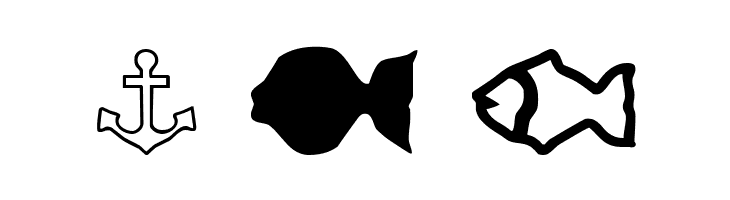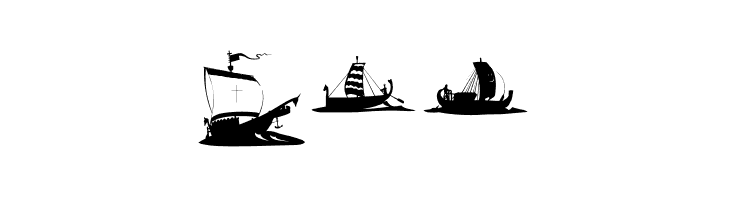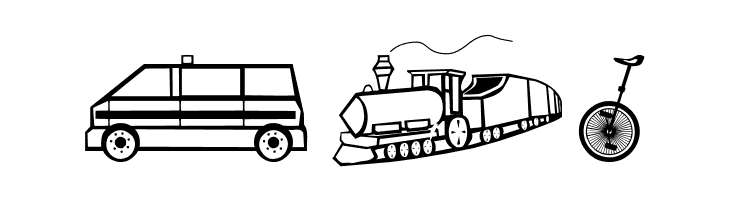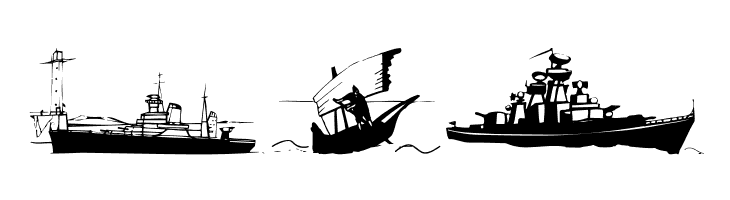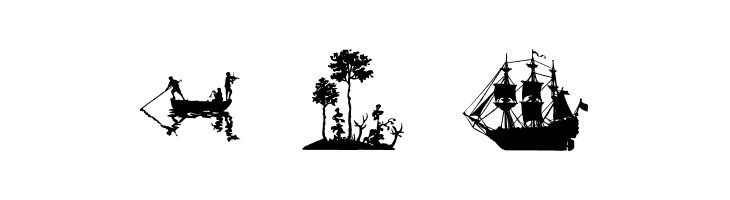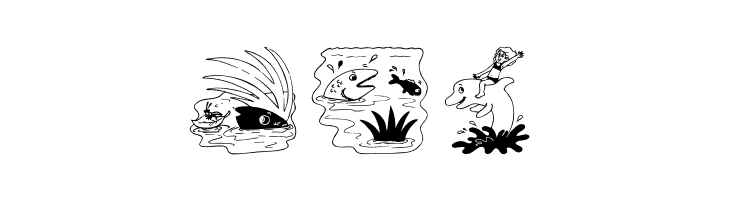
Illustrative maritime-themed display font with boat and ship drawings.
Decorative maritime pictogram set with detailed nautical illustrations.
A display font composed of ship and boat illustrations as characters.
A bold pictogram font of various transportation and vehicle icons.
A pictogram set featuring various vehicles and modes of transportation.
Intricate ship illustrations form each character in a maritime-themed decorative font.
Silhouette-style decorative font with waterfront and nature scenes.
Decorative dingbat font with swimming and nautical illustrations.